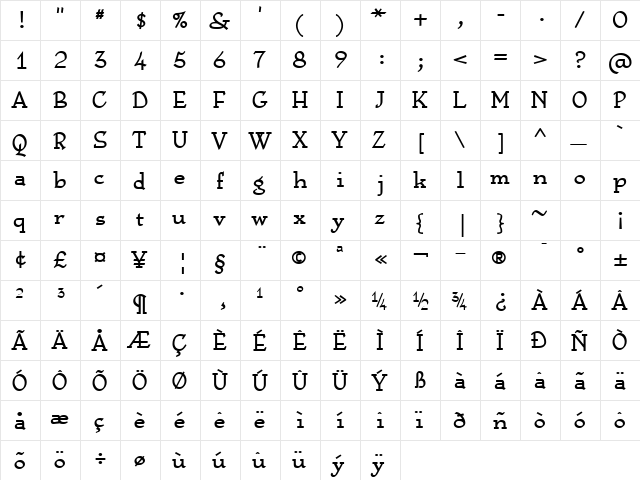
Anarckhie Bold
Design Context for Anarckhie Typeface
Anarckhie takes a measured approach to typography — its balanced proportions and neutral character make it a reliable workhorse for both digital and print work. The heavy weight commands attention and anchors typographic hierarchies.